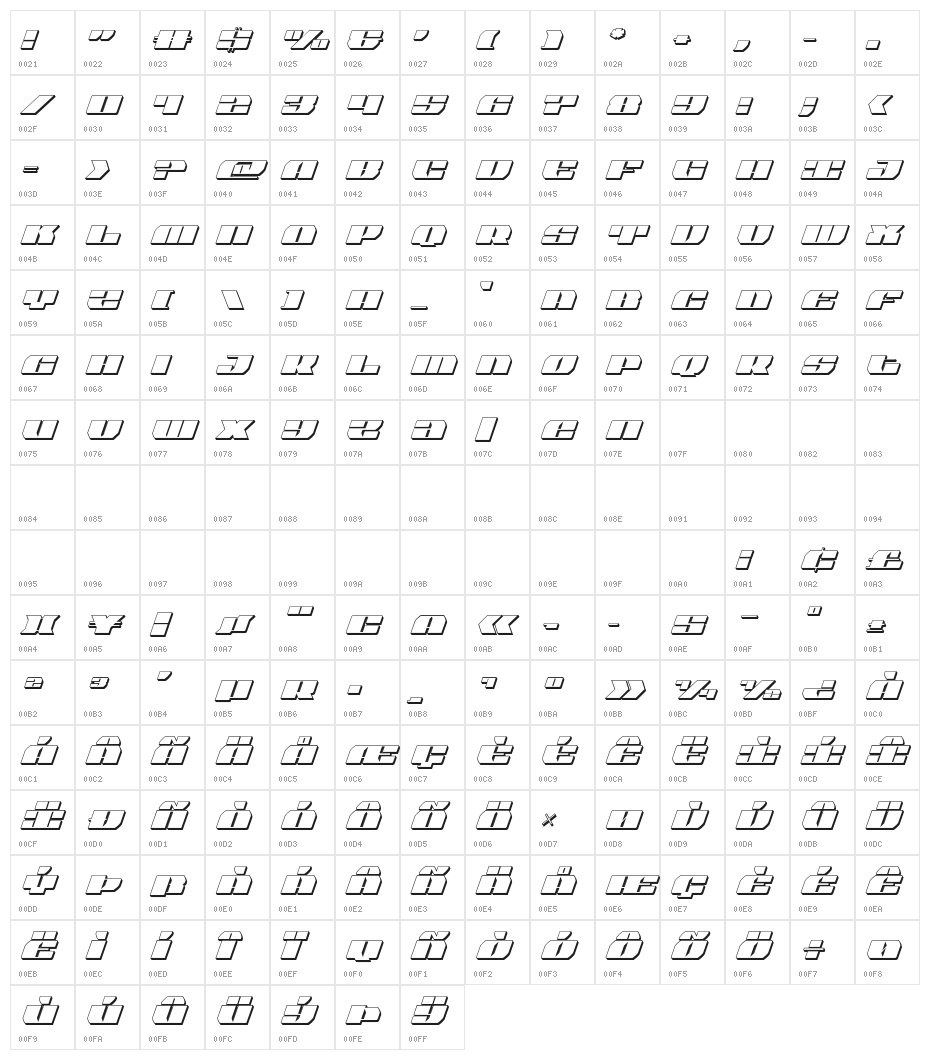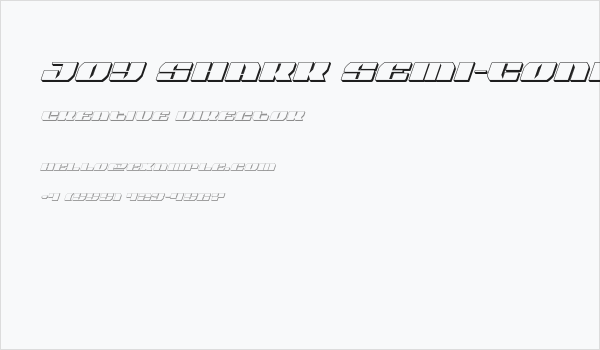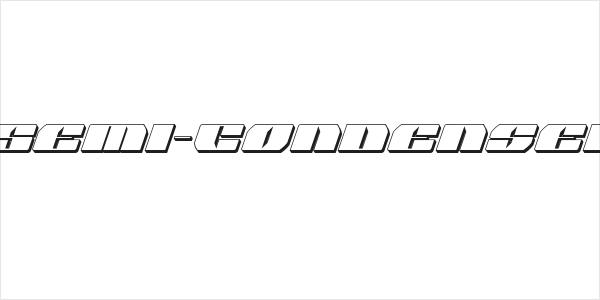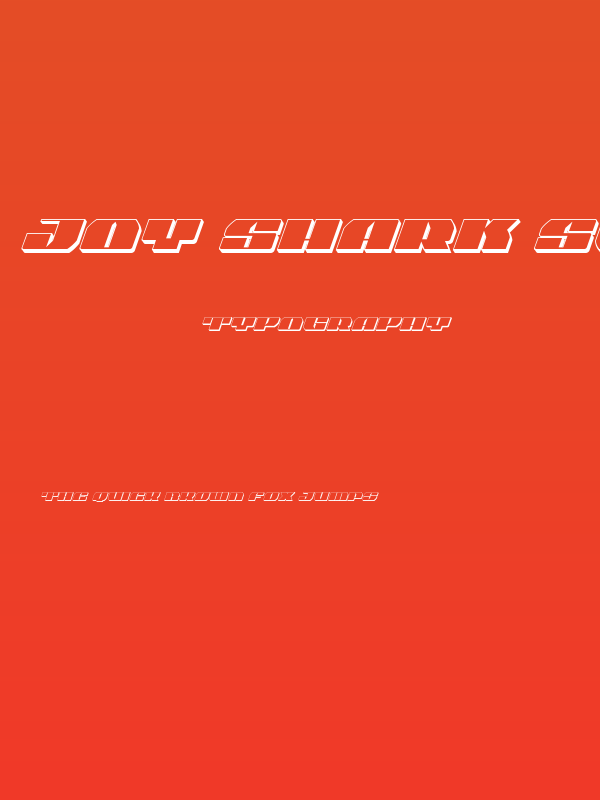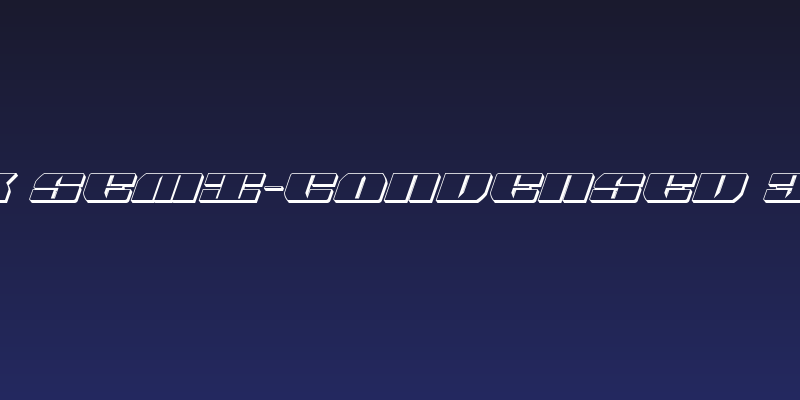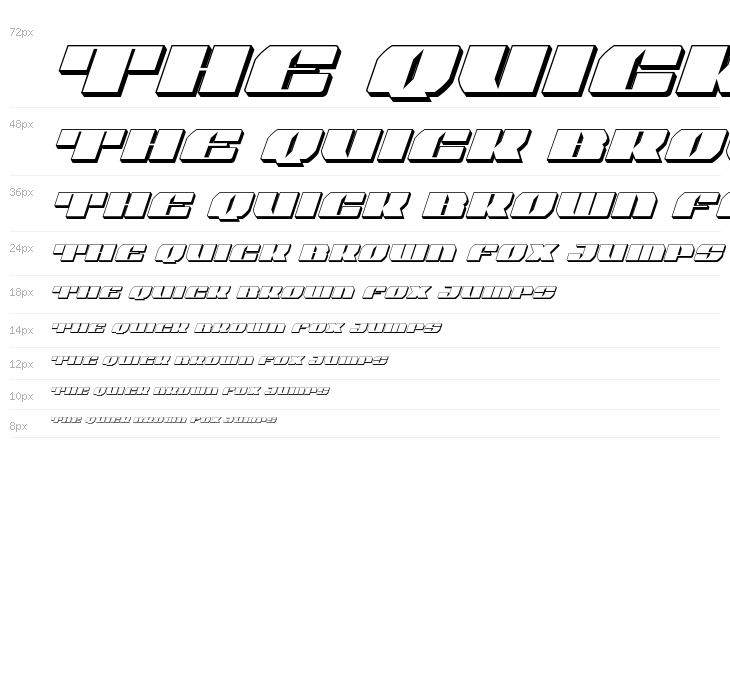
Joy Shark Semi-Condensed 3D Italic Font
Joy Shark Semi-Condensed 3D Italic Description
This font features a bold, three-dimensional design with a semi-condensed structure. The italicized style gives it a dynamic and forward-moving appearance, while the 3D effect adds depth and a modern twist. The characters are well-defined with sharp edges and a slight slant, creating a sense of motion. The uppercase and lowercase letters maintain consistency in style, with numerals and special characters following the same aesthetic. This font is ideal for projects that require a strong visual impact and a contemporary feel.
| Proposed Projects | Ideal for headlines, posters, branding, and any design needing a striking, modern look. |